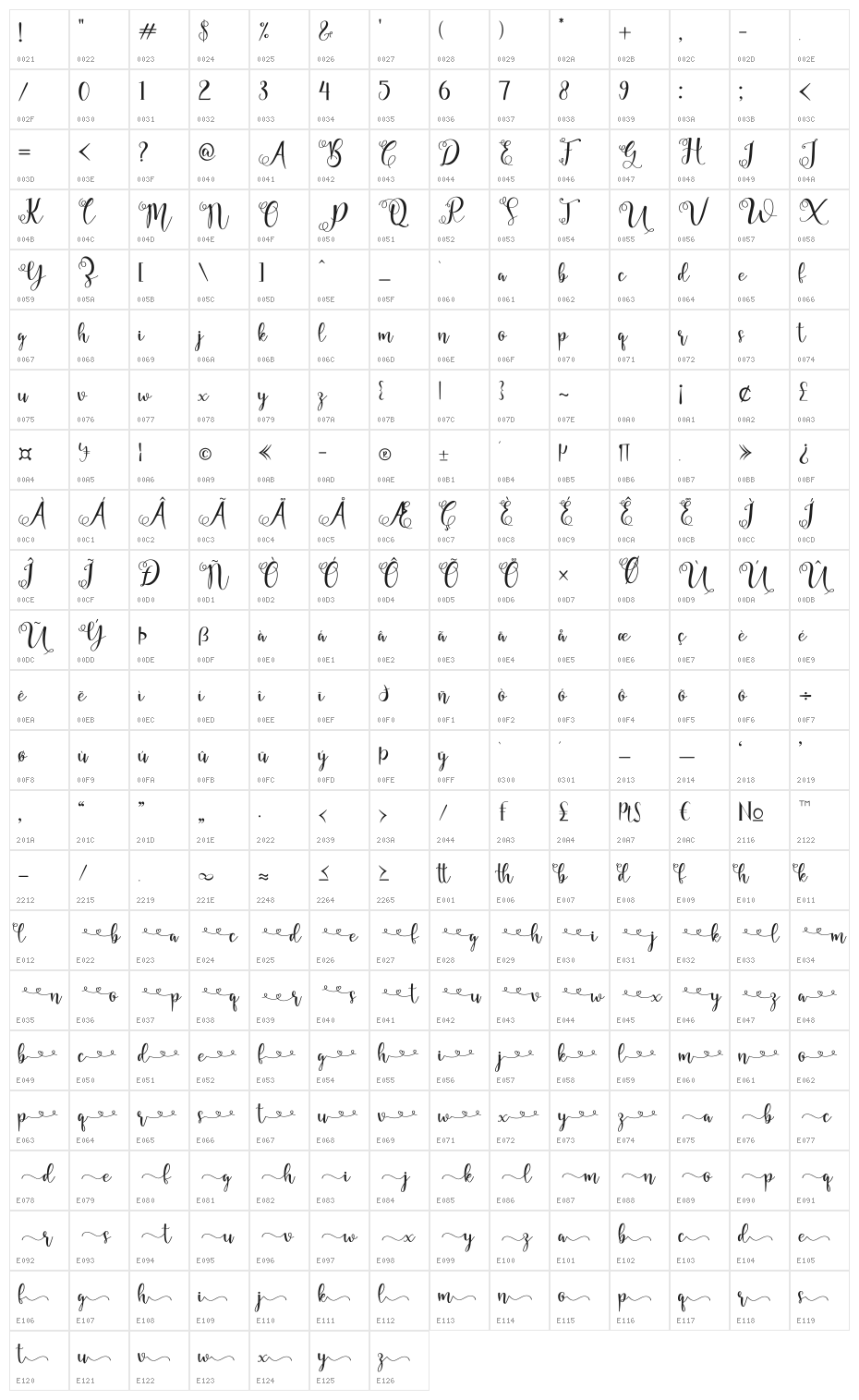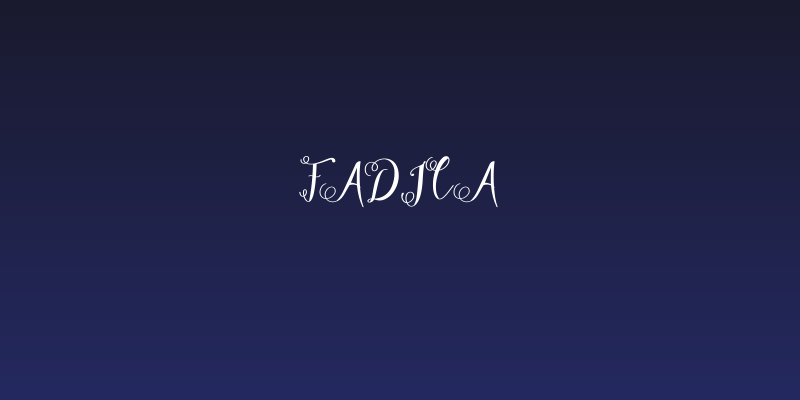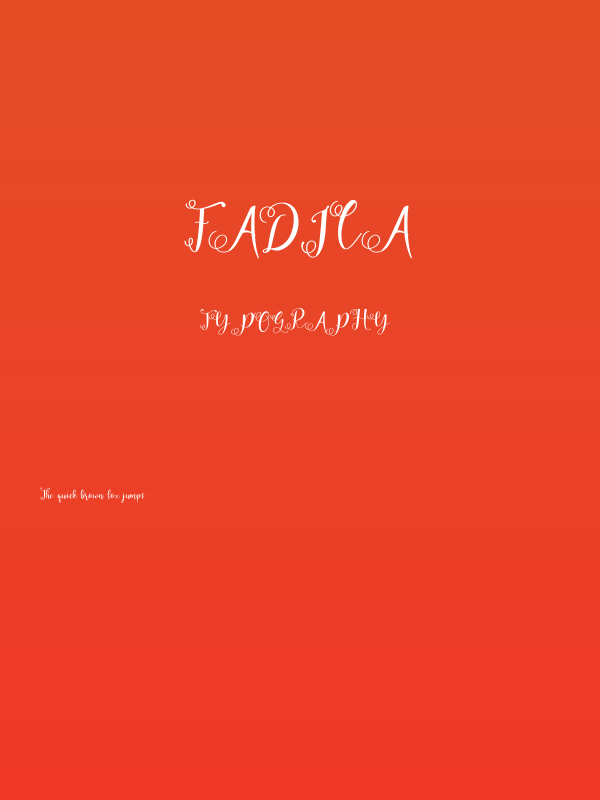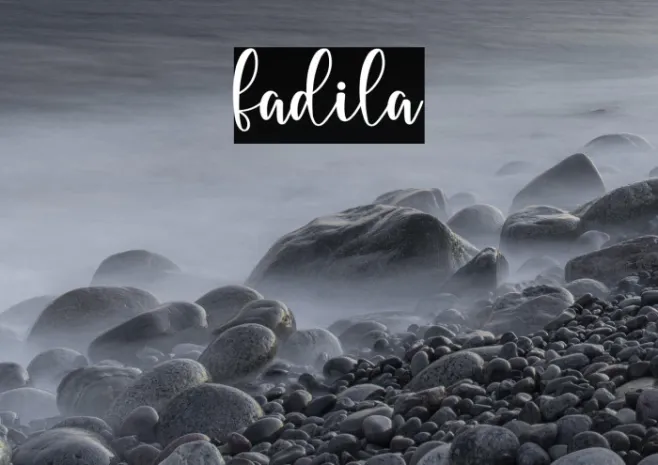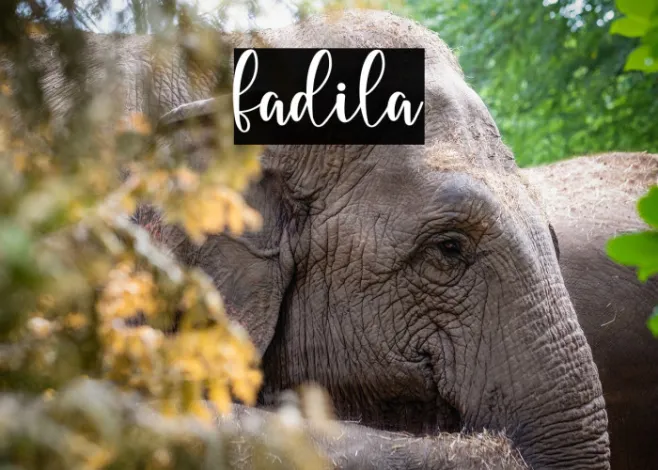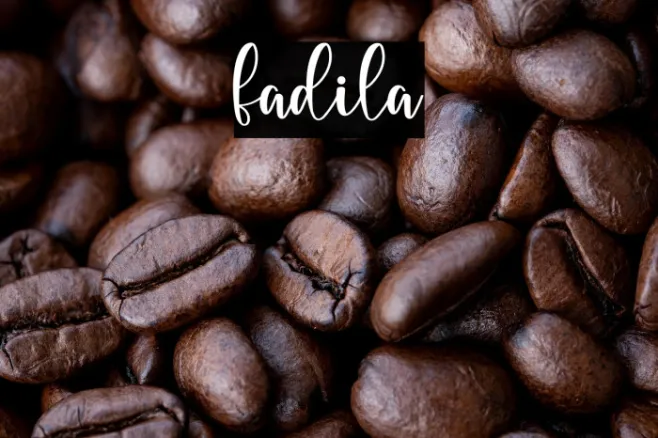
fadila Font
fadila Description
This font features an elegant and decorative script style with intricate swirls and flourishes, particularly noticeable in the uppercase letters. The lowercase letters maintain a smooth, flowing appearance, adding a touch of sophistication and charm. The numerals are bold and slightly condensed, complementing the overall aesthetic. Special characters are designed with the same ornate flair, making them suitable for creative and artistic projects. The font's unique style is perfect for adding a personal and stylish touch to any design.